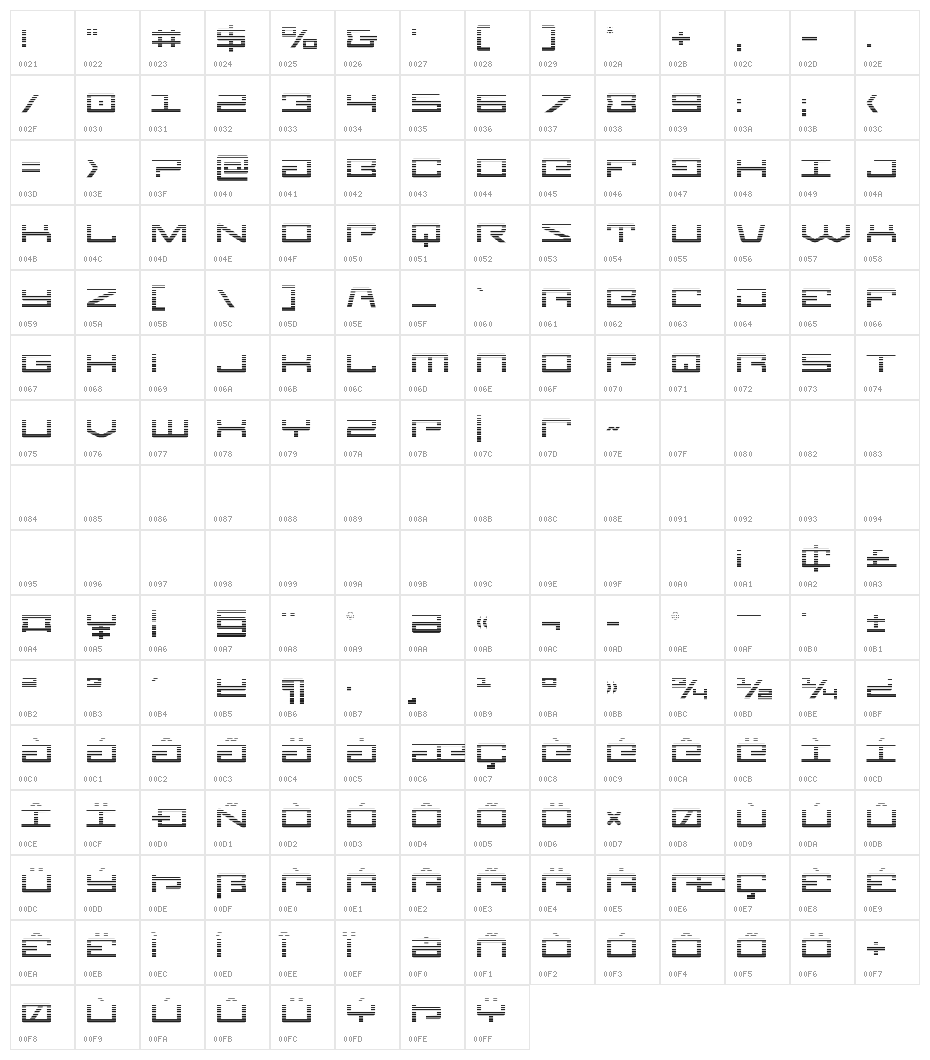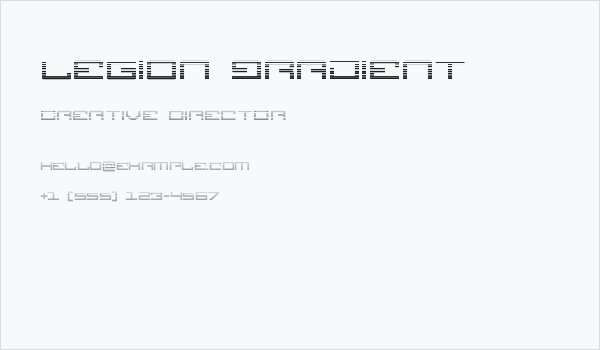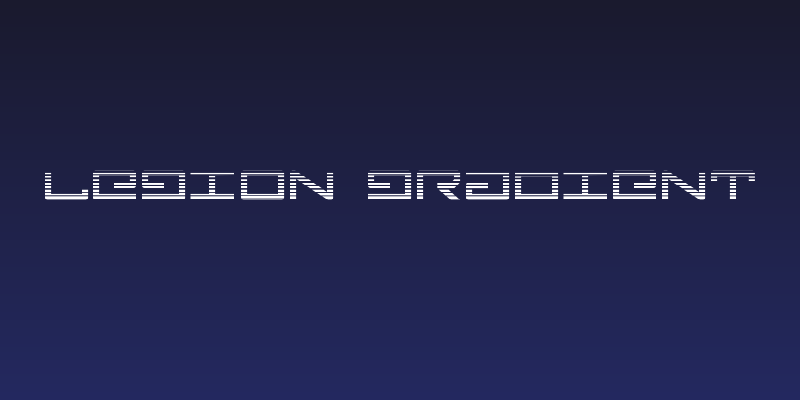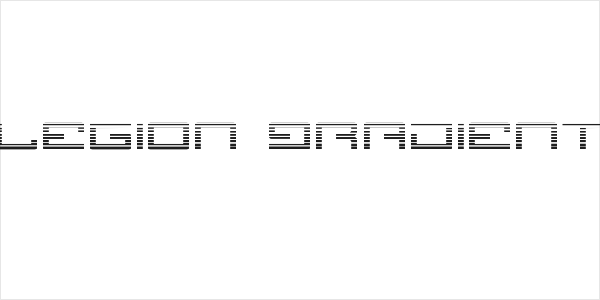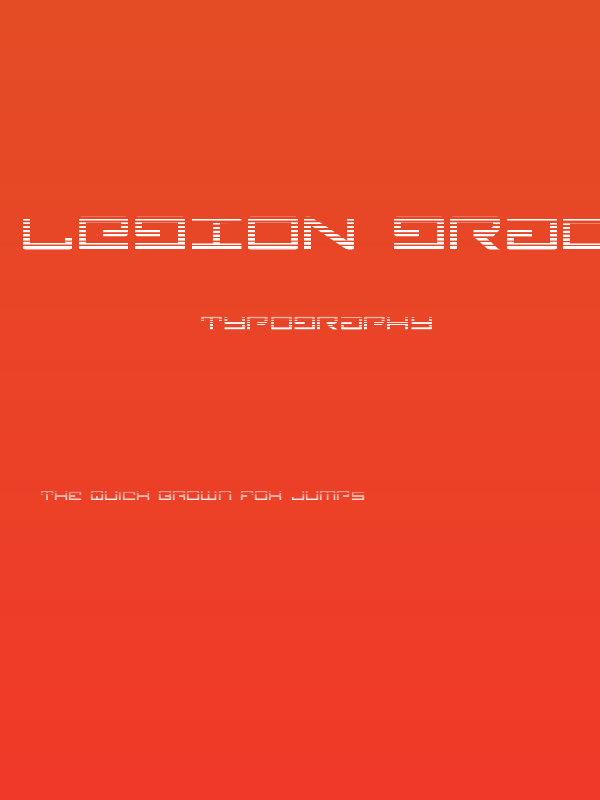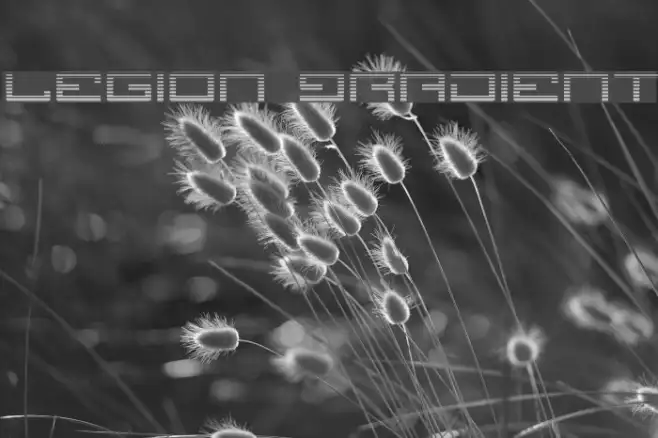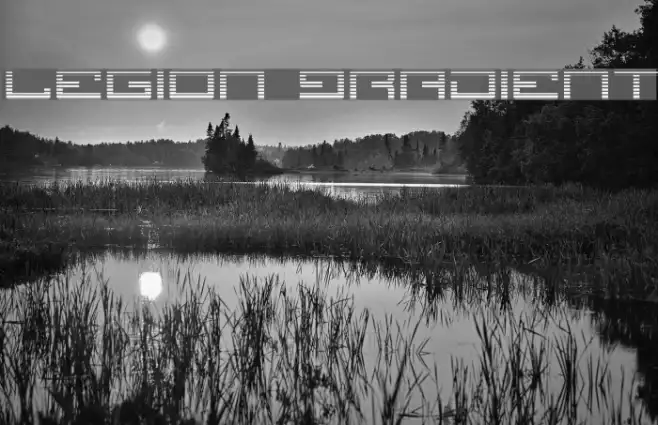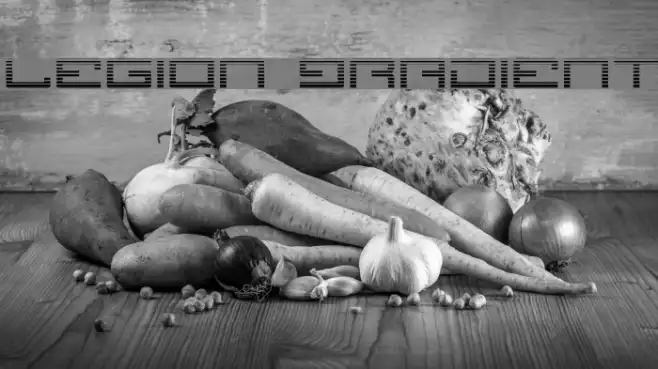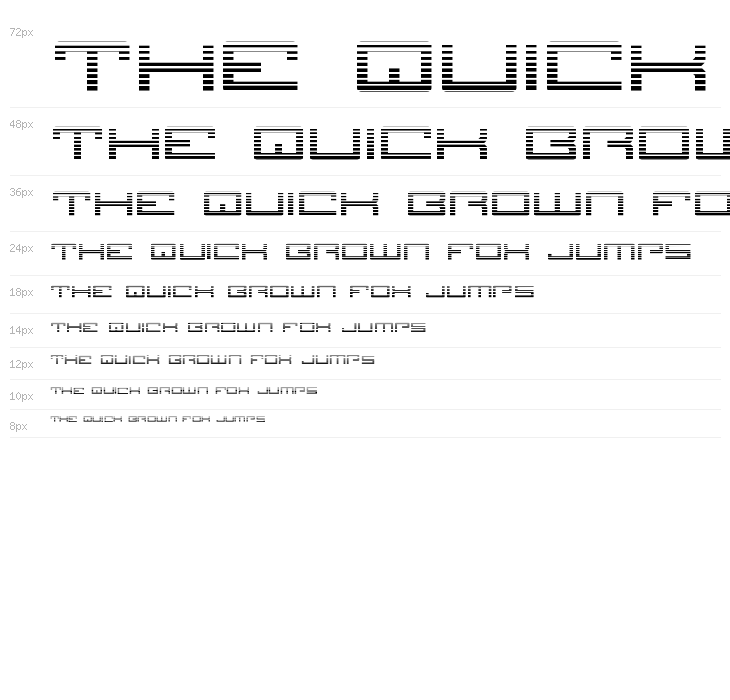
Legion Gradient Font
Legion Gradient Description
This font features a futuristic and digital aesthetic, characterized by its segmented and linear design. Each character is constructed with horizontal lines that create a sense of movement and modernity. The uppercase and lowercase letters maintain a consistent style, with sharp angles and a geometric structure. The numbers and special characters follow the same design principles, ensuring uniformity across all elements. This font's unique style makes it stand out, offering a bold and innovative look that is perfect for tech-oriented projects.